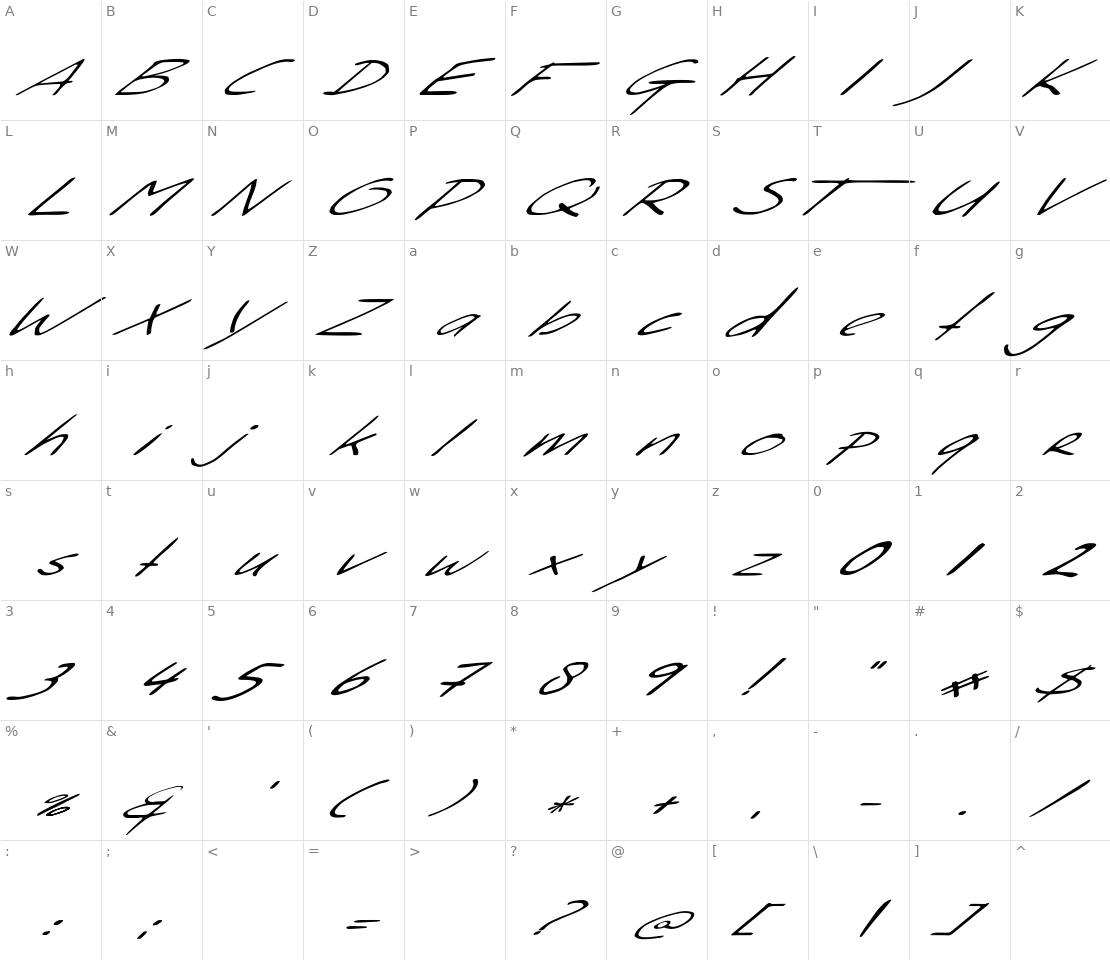
Sleight Of Hand
by Samyuli
Sleight Of Hand is a thin, flowing handwritten face from Samyuli that reads like a practiced signature, with slanted letterforms that move quickly across the baseline. The strokes are lightweight and elegant without feeling stiff, carrying just enough irregularity to feel personal rather than calculated. A natural pick for branding, invitations, and anywhere you want something that feels like it was signed rather than typed.